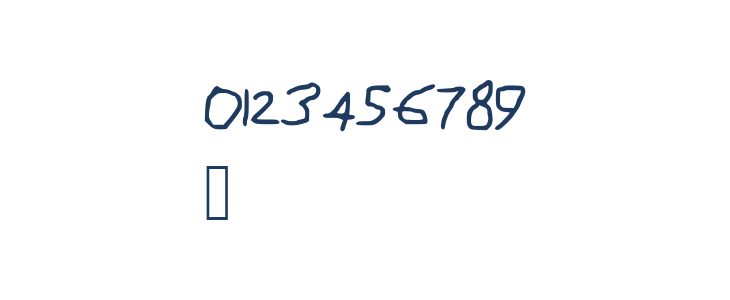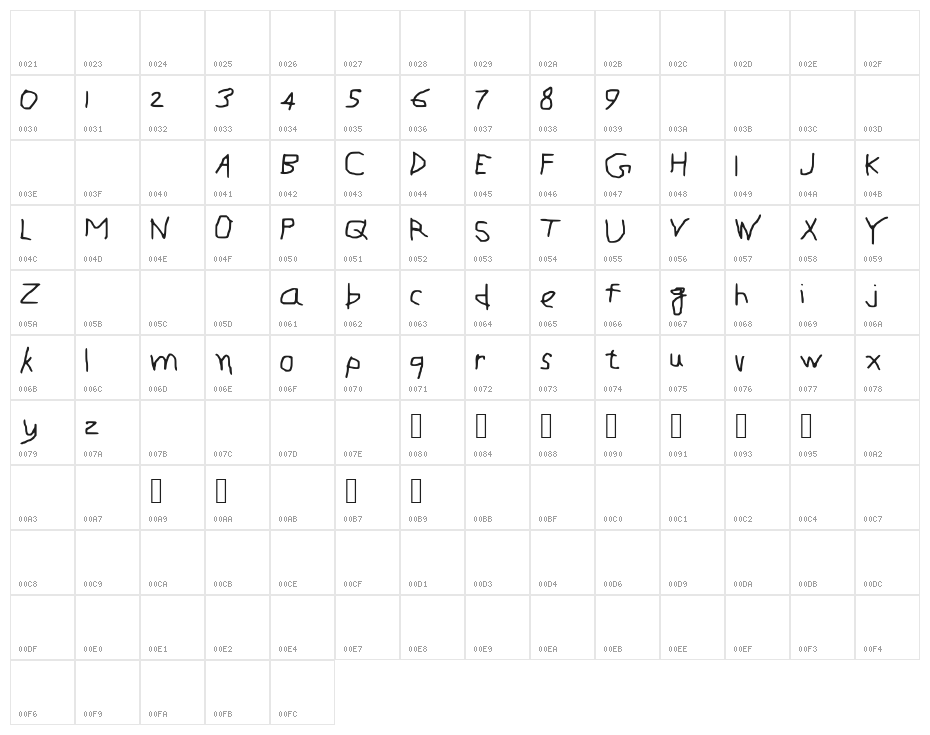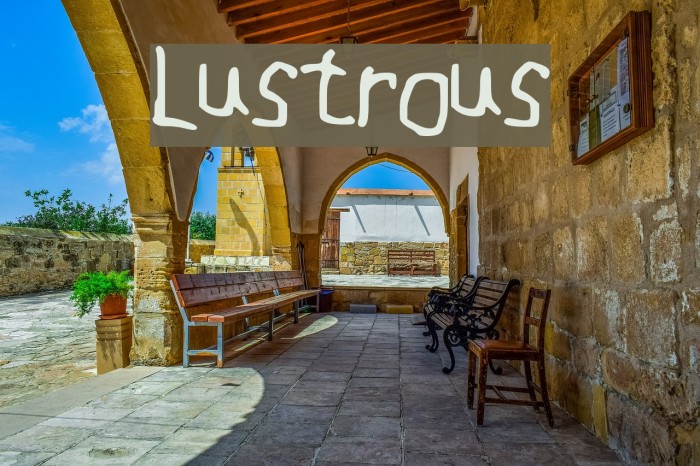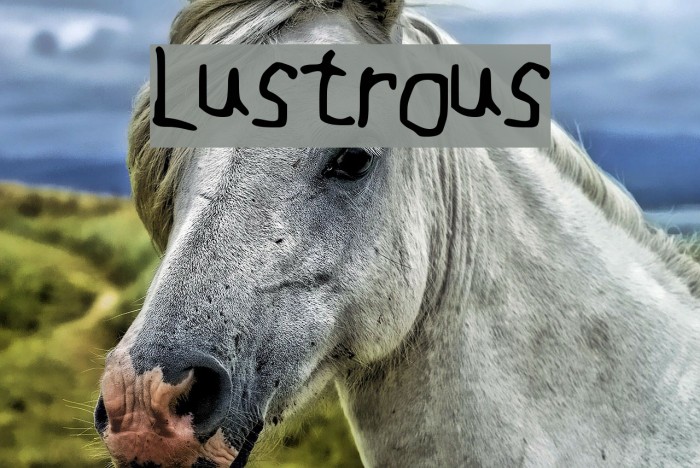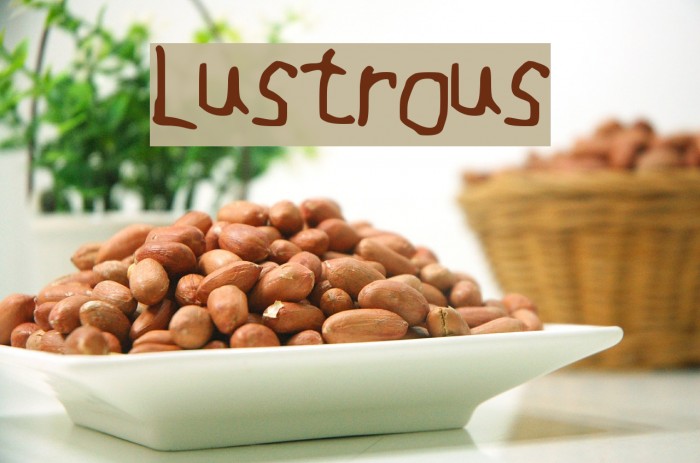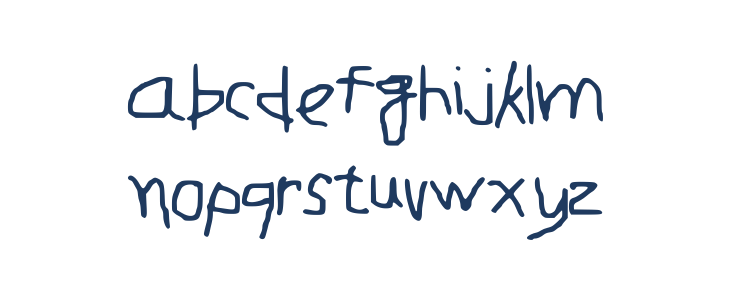
Lustrous Font
Lustrous Description
This font features a handwritten style with a playful and casual appearance. The letters are uneven and slightly irregular, giving it a personal and informal touch. The strokes are bold and consistent, with a medium contrast between thick and thin lines. The characters have a natural flow, reminiscent of quick, spontaneous handwriting. This style is suitable for projects that require a human touch and a sense of authenticity.
Overall StyleCasual
Use CaseHeadlines, Logos, Creative projects
Proposed ProjectsIdeal for greeting cards, personal notes, informal invitations, and creative projects that require a personal touch.